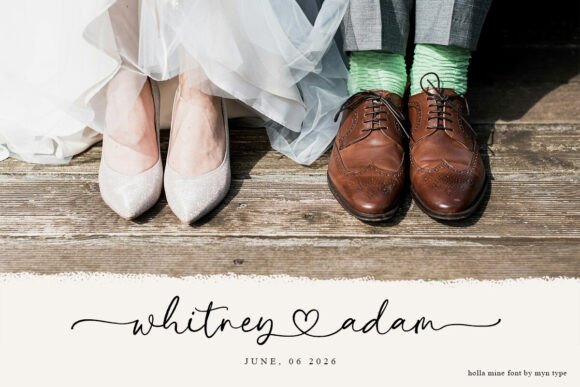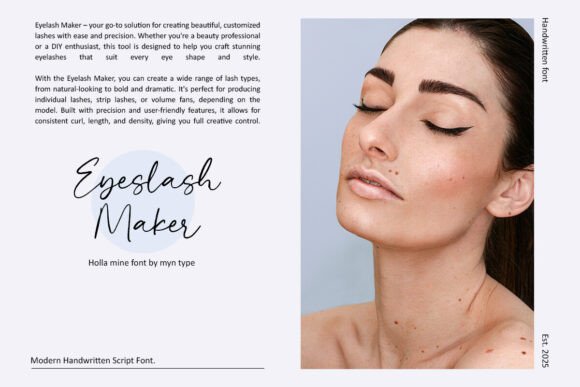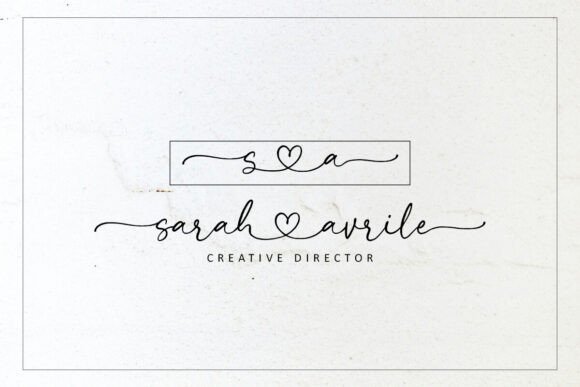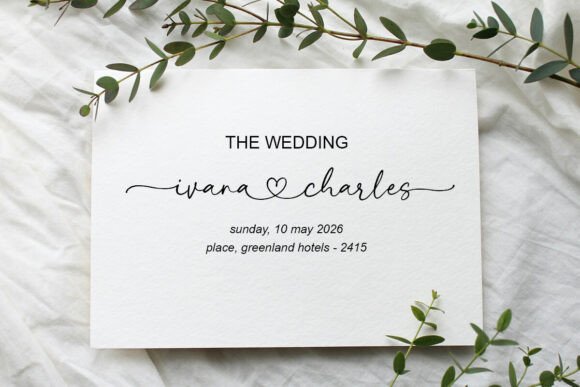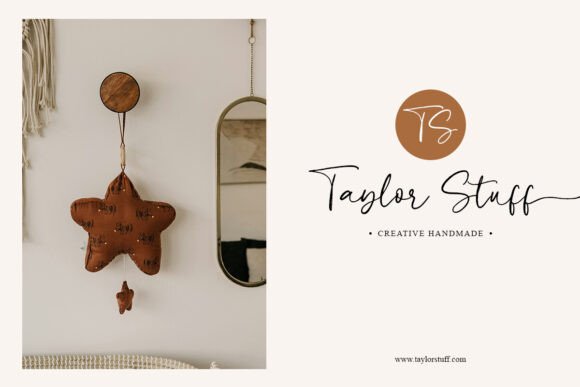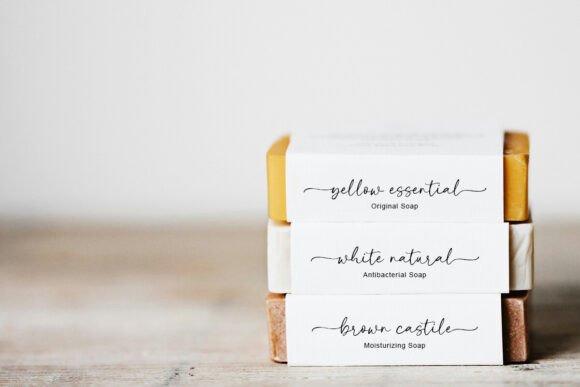
Introduction to Holla Mine Font
Holla Mine is a handwritten font that captures the natural texture of brush with pretty flow.
Whether youโre creating a love note, logo, or quote, this font brings a genuine, hand-drawn elegance to your designs .
Key Features of Holla Mine Font
Why Choose Holla Mine Font?
Holla Mine Font offers exceptional quality and versatility, making it a valuable addition to your design toolkit. Whether you’re creating for personal projects or commercial use, Holla Mine Font delivers professional results.